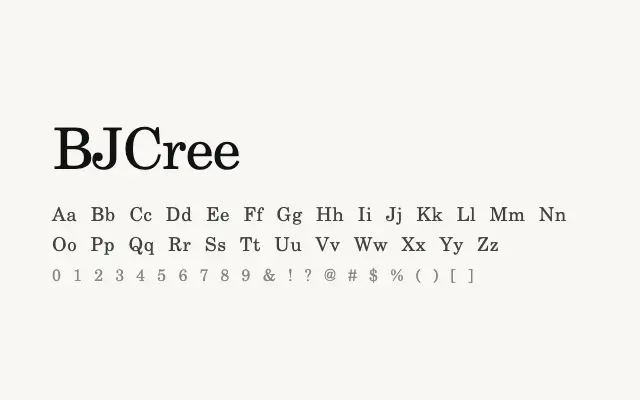
A purposeful serif typeface built to serve Cree syllabics alongside Latin, addressing a historically underserved typographic need.
BJCree fills a genuine gap in type provision for Indigenous Canadian communities whose languages use the Unified Canadian Aboriginal Syllabics system. The multiple weights give it flexibility for both running text and headlines in bilingual documents. It is most valuable in educational, governmental, and community publishing contexts where Cree and English must appear together.
BJCree is a serif typeface designed specifically to support Cree syllabics in the Canadian Aboriginal Unified Canadian Aboriginal Syllabics block, with Latin support for bilingual materials. Its design prioritises functional legibility for an underserved script community.